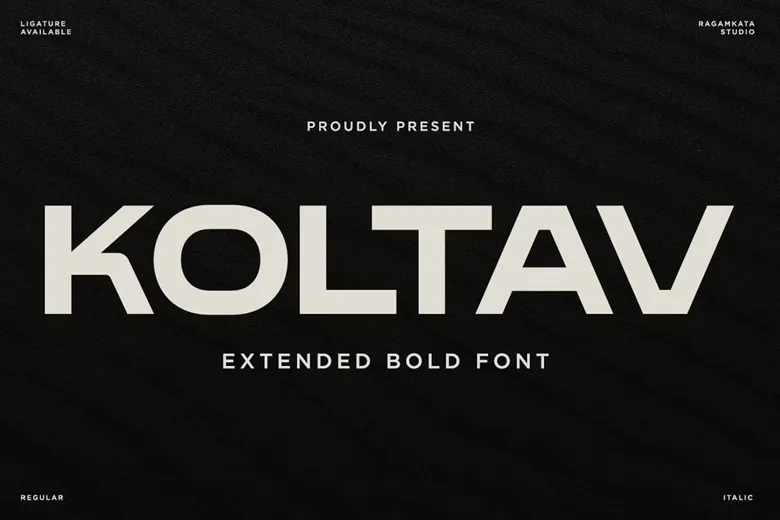
Koltav Font
Koltav is a bold and extended font designed to provide the maximum amount of visual impact with clean geometry and powerful character. Koltav is designed with broad proportions and confident strokes to create a bold and modern appearance, which is immediately catchy. Its bold shape suits high-impact headlines, effective branding images, and modern design work in which clarity and authority are required.
Large-scale typography To support bold visual communication, Koltav, designed as a branding tool, creative studio, marketing, and digital producer is a versatile typographic tool. This font is used in logo design and brand identity, posters, social media campaigns, packaging, editorial layouts, and digital advertisements to take the project to the next level of confidence, modern, and professional look.
Koltav Sans Serif Font